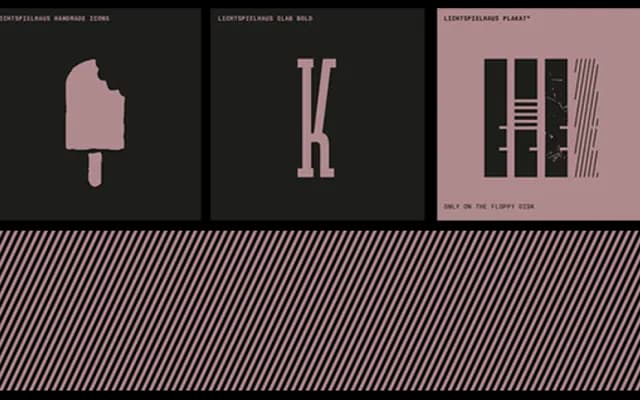
Floppy Type
Typocalypse · Kai Merker, Stefan Huebsch, Sven Fuchs
A limited-edition bundle of twelve fonts from Typocalypse, sold on a physical 3.5-inch floppy disk alongside an instant digital download.
The set brings together nine distinct typefaces spanning display, slab, monospaced and icon styles, united by a retro-computing premise. Physical copies were limited to twenty floppy disks and are now sold out, though the digital download remains available. Produced by the southwest German collective Kai Merker, Stefan Huebsch and Sven Fuchs.
Floppy Type is a curated collection of twelve fonts spanning multiple styles including slab, mono and display faces, packaged as a novelty product on physical 3.5-inch floppy disk; the unifying concept is retro-computing aesthetics rather than a single typeface classification.